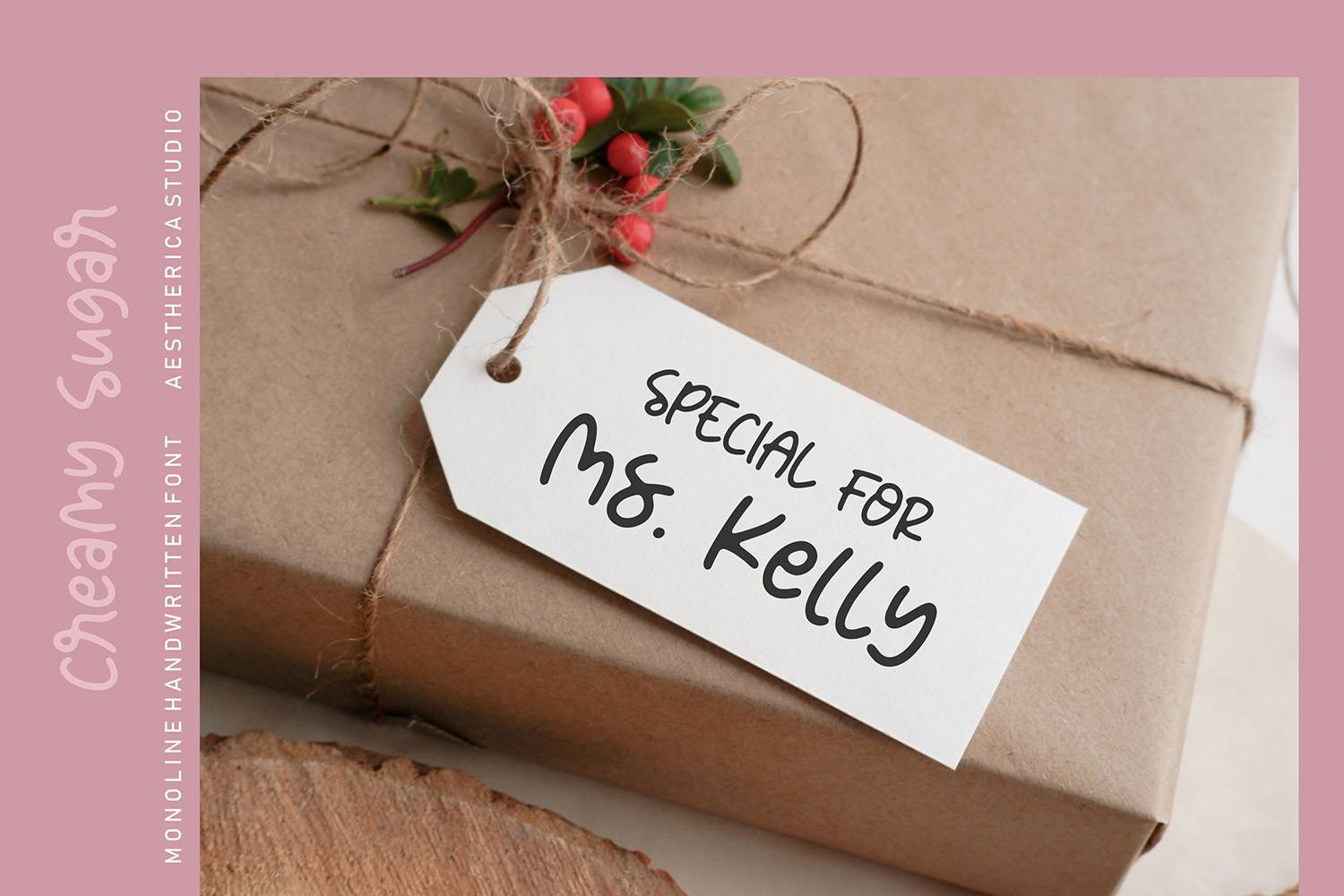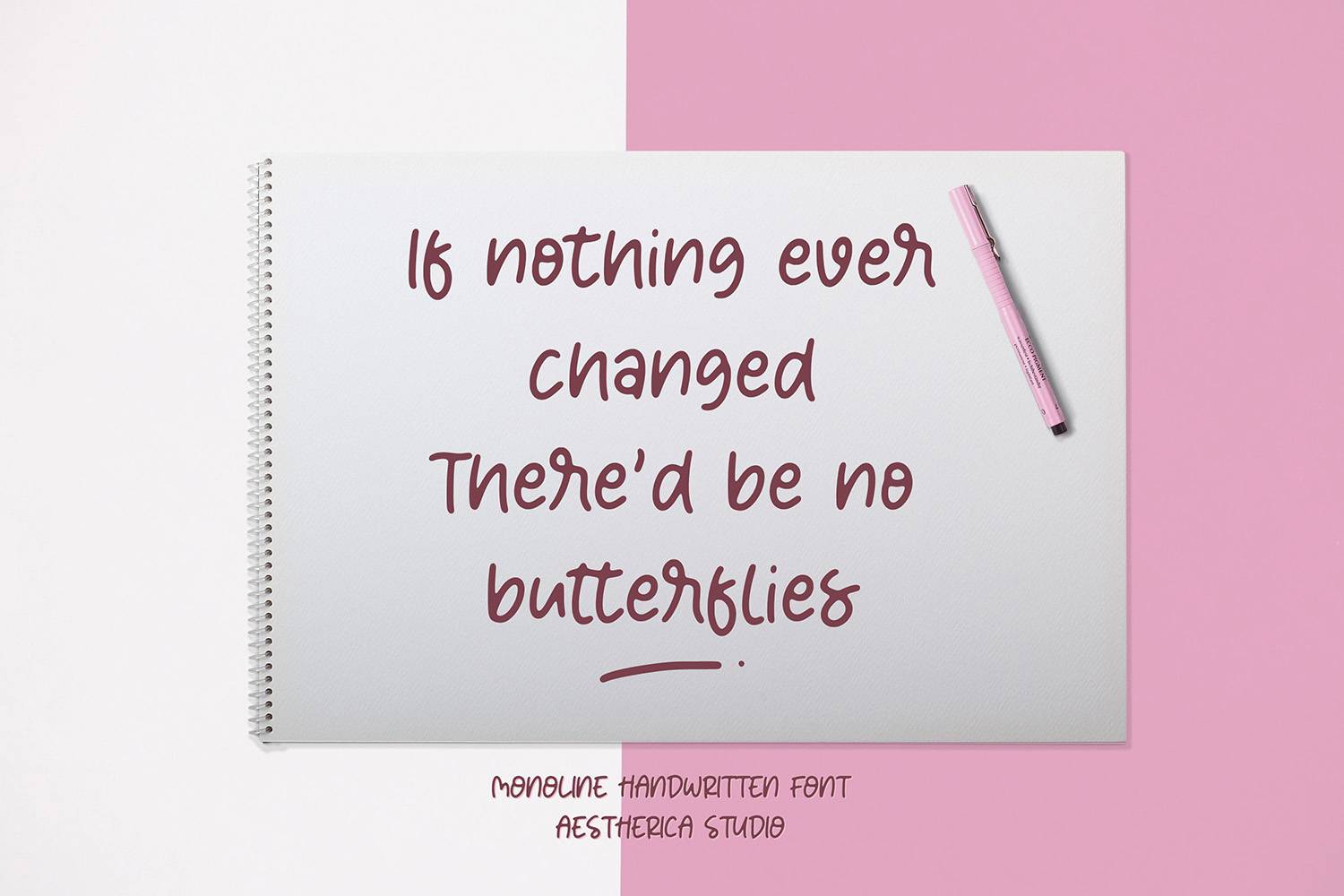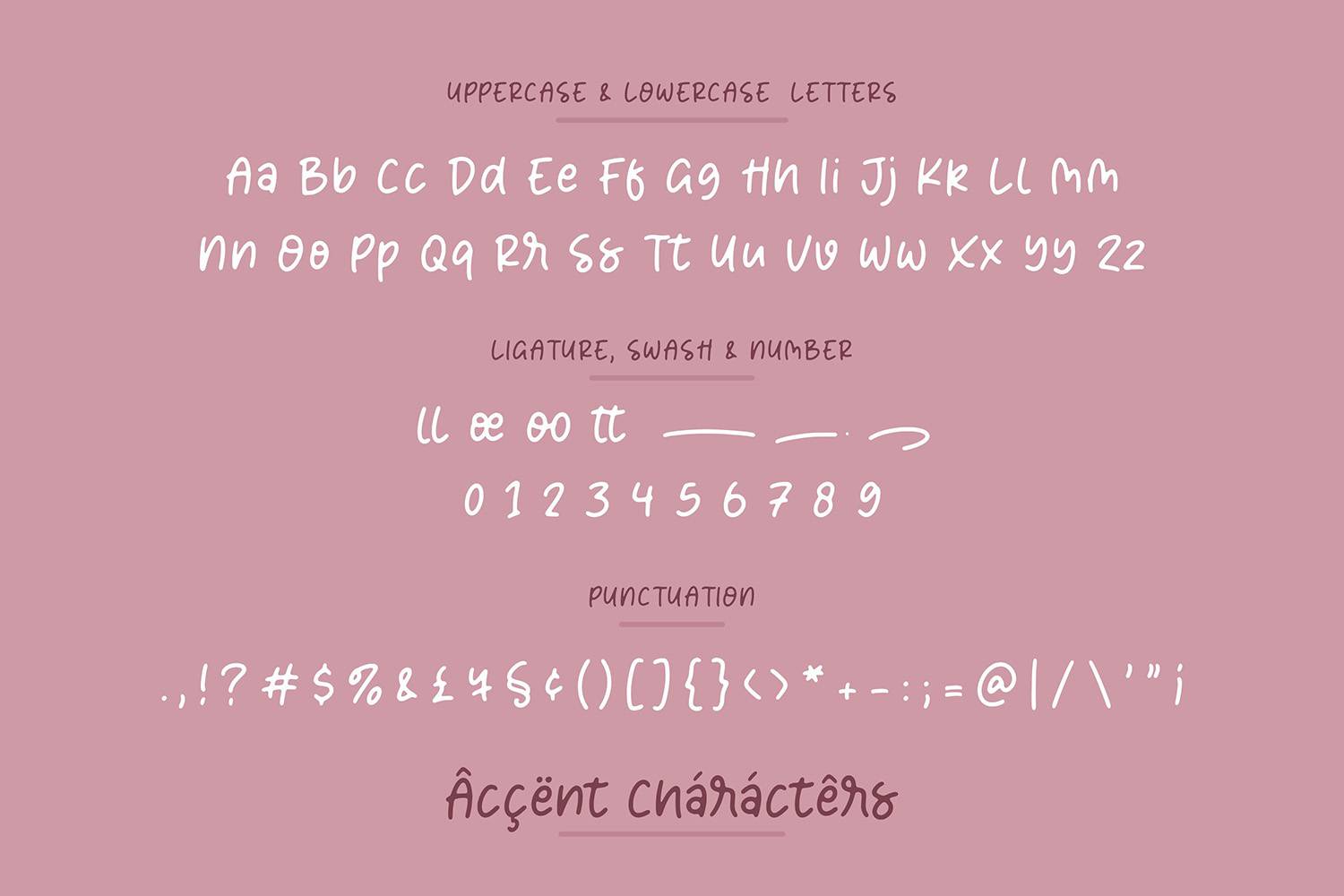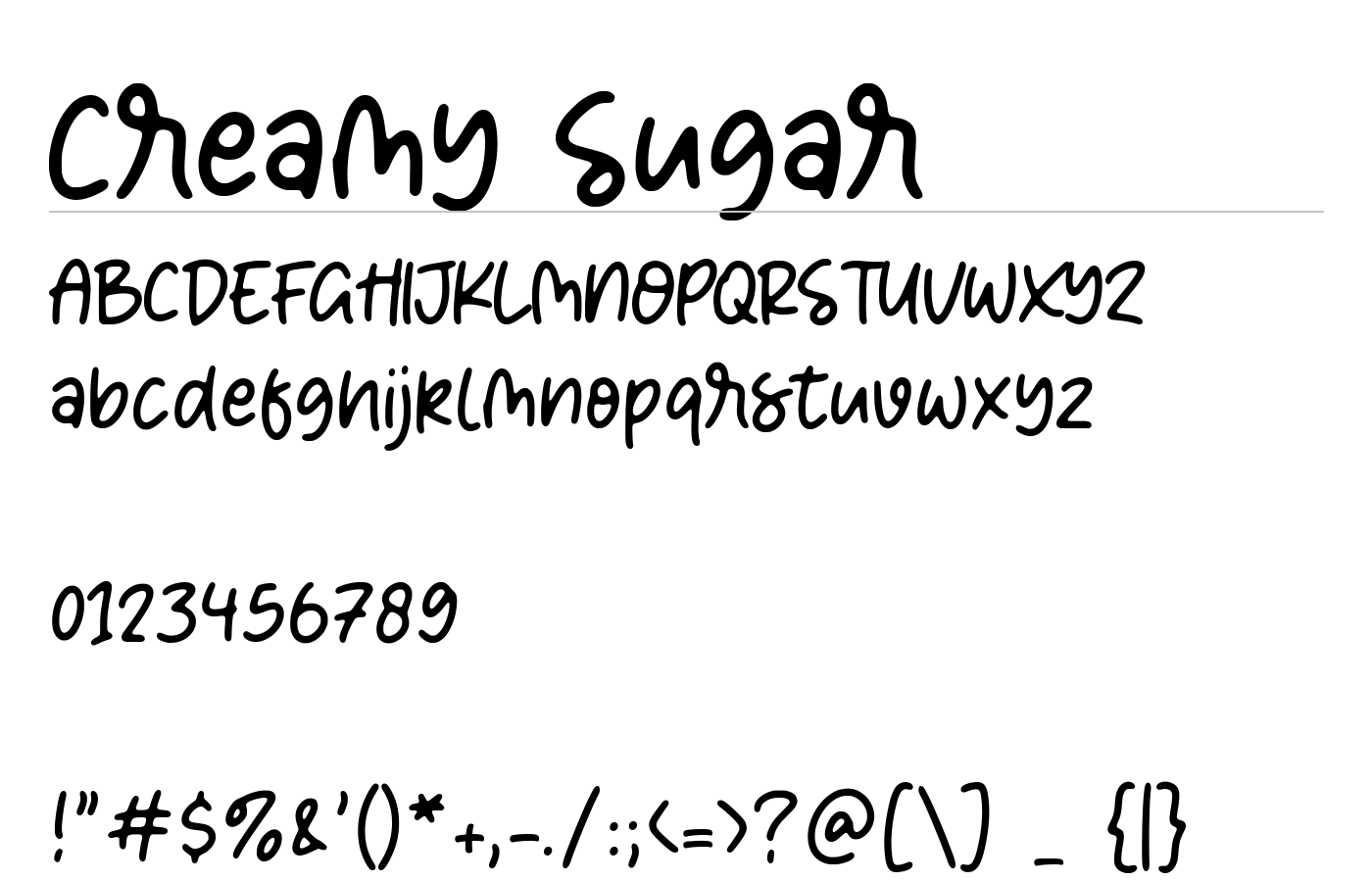
Creamy Sugar is a playful and casual handwritten font featuring a slightly uneven, organic stroke that adds charm and personality. Its rounded, light-to-medium weight letterforms with moderate x-height and unique character shapes make it approachable and friendly, ideal for creative projects and informal branding. This font works well for logos, packaging, and headlines where a warm, whimsical touch is desired.
Creamy Sugar Font
About Creamy Sugar Font